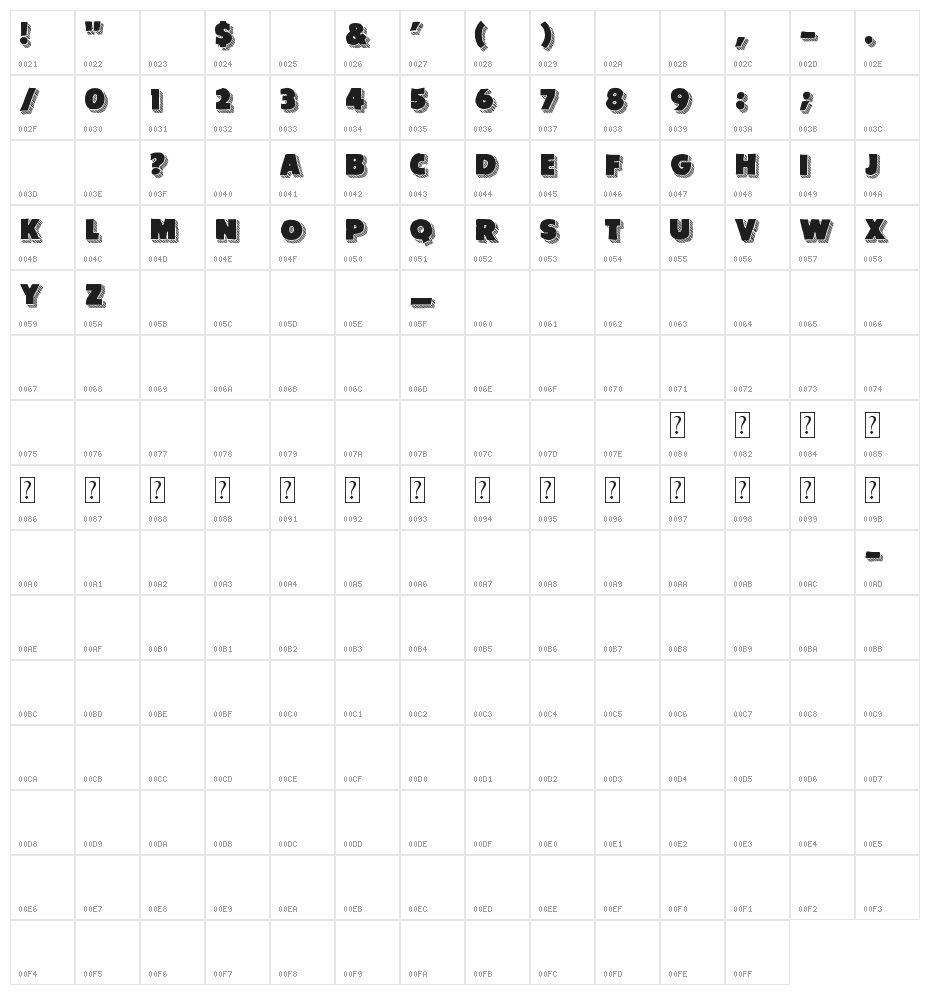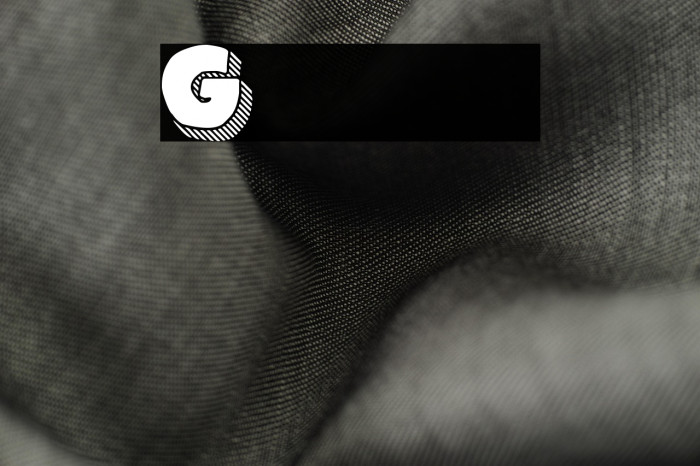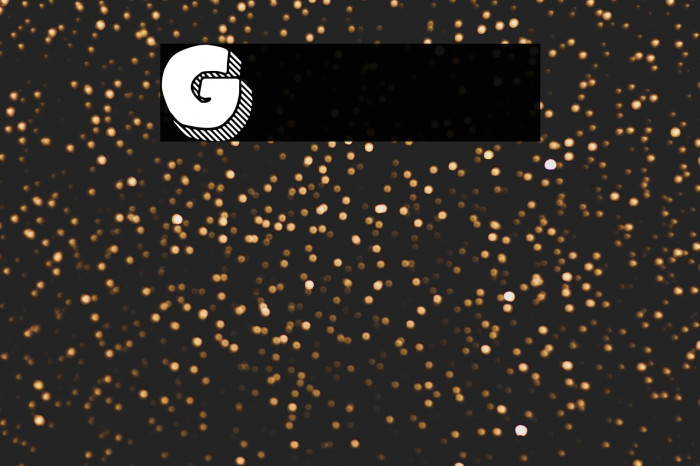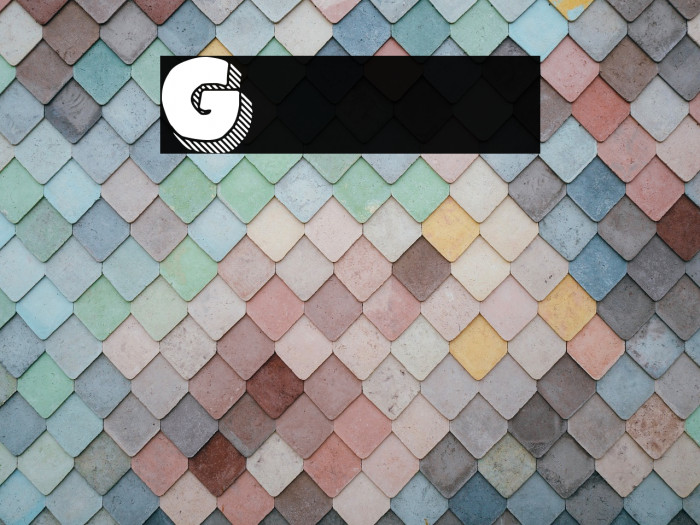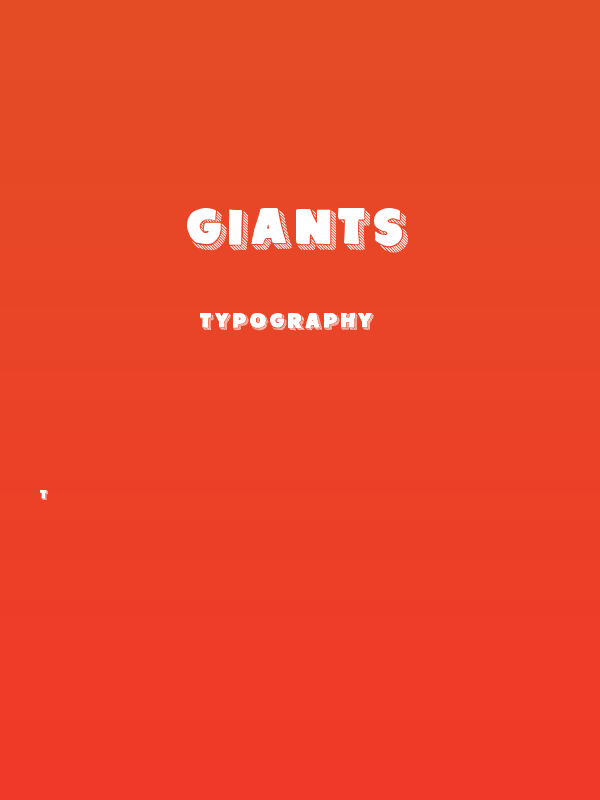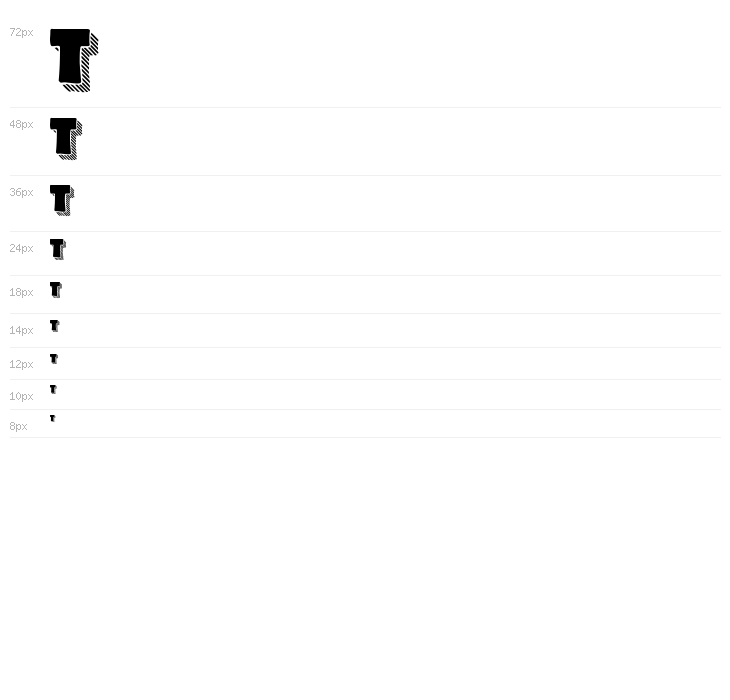
Giants Font
Giants Description
This bold and impactful font features a strong 3D shadow effect, giving it a dynamic and eye-catching appearance. The characters are thick and robust, with a playful yet assertive style that commands attention. The shadowing adds depth and dimension, making each letter pop off the page. The font's design is both modern and slightly retro, reminiscent of comic book or vintage poster styles. It is well-suited for projects that require a bold statement or a fun, energetic vibe.
| Overall Style | Modern, Vintage |
| Proposed Projects | Ideal for posters, headlines, comic books, and branding that requires a bold and energetic look. |